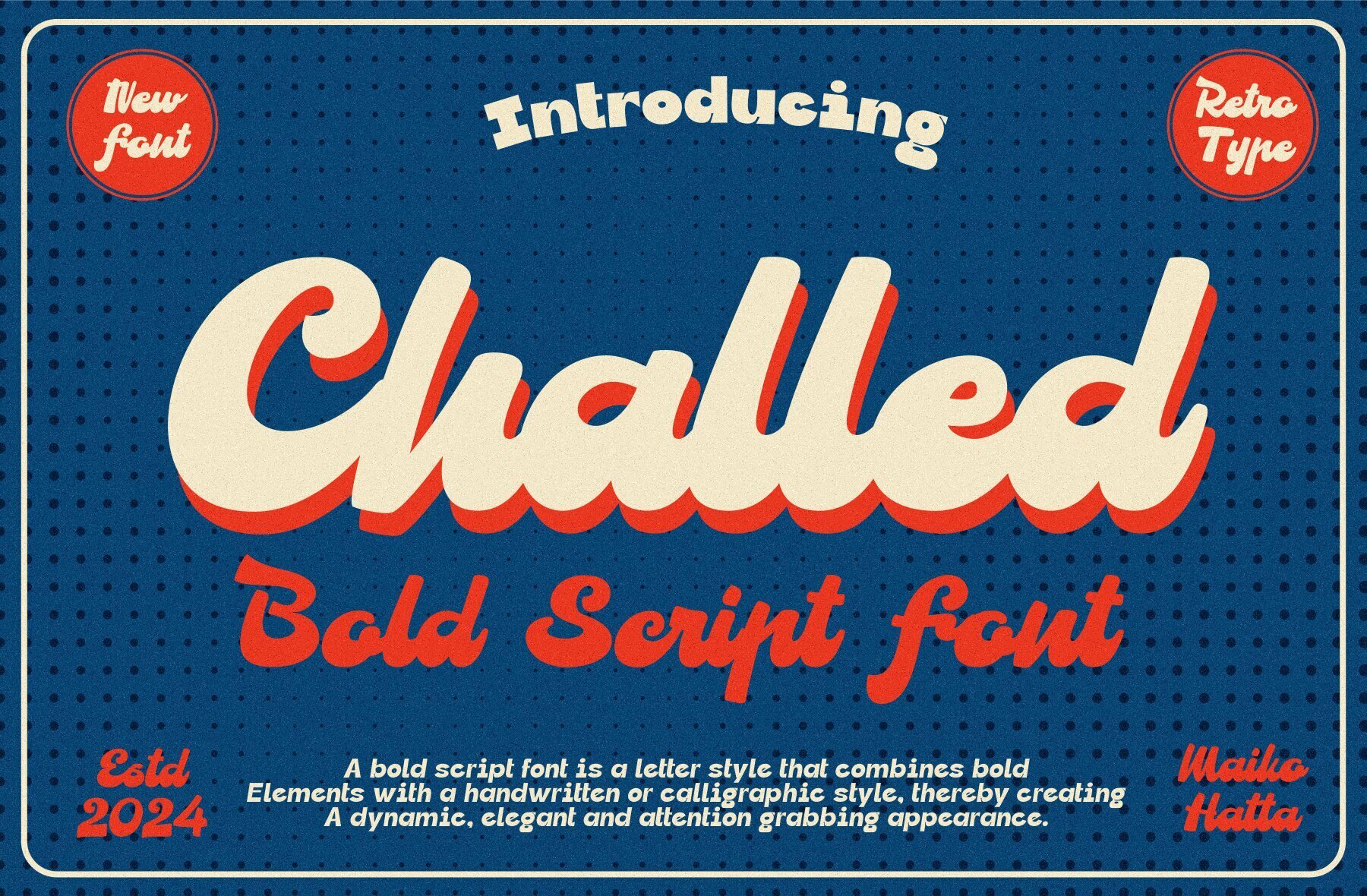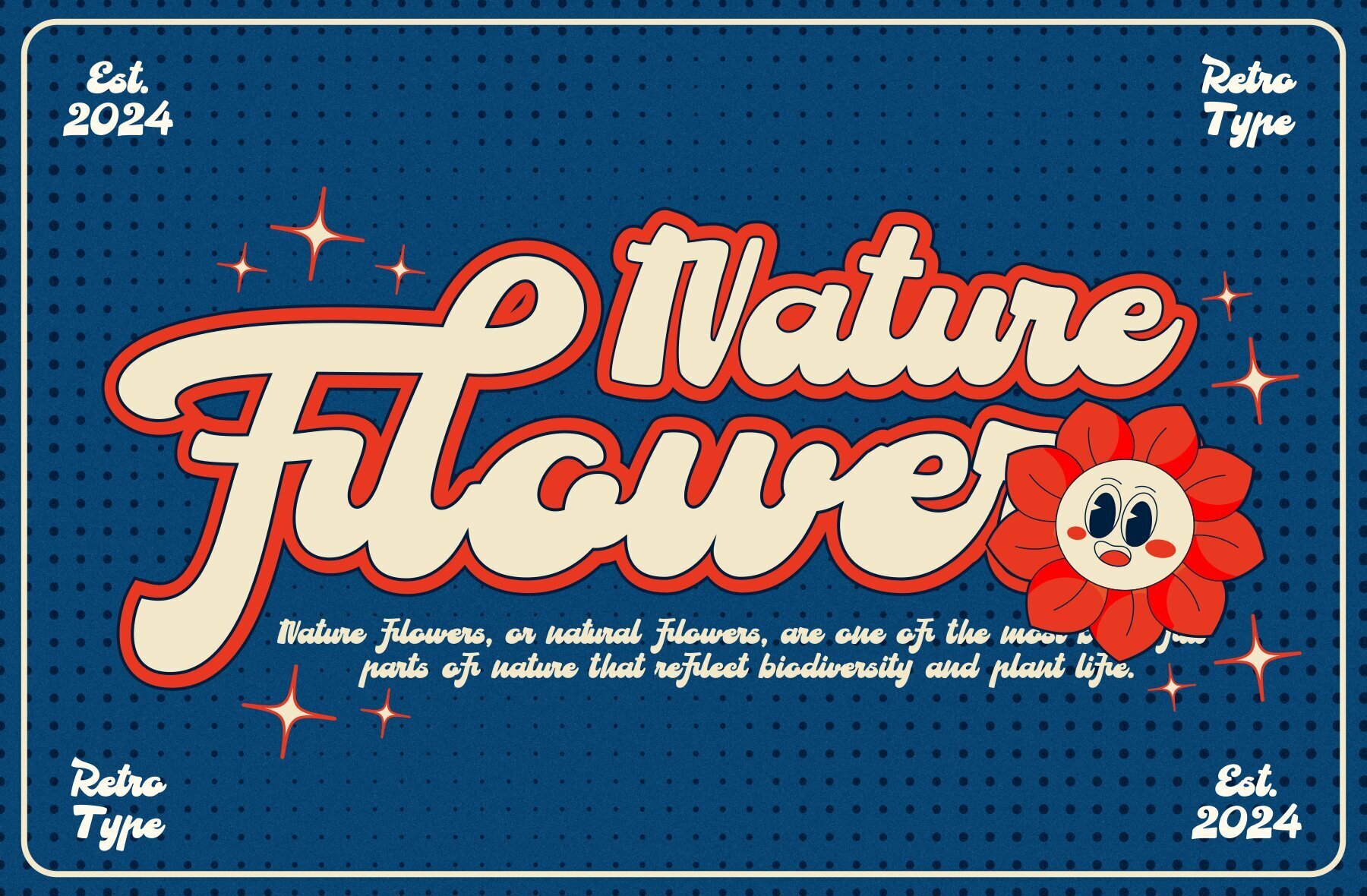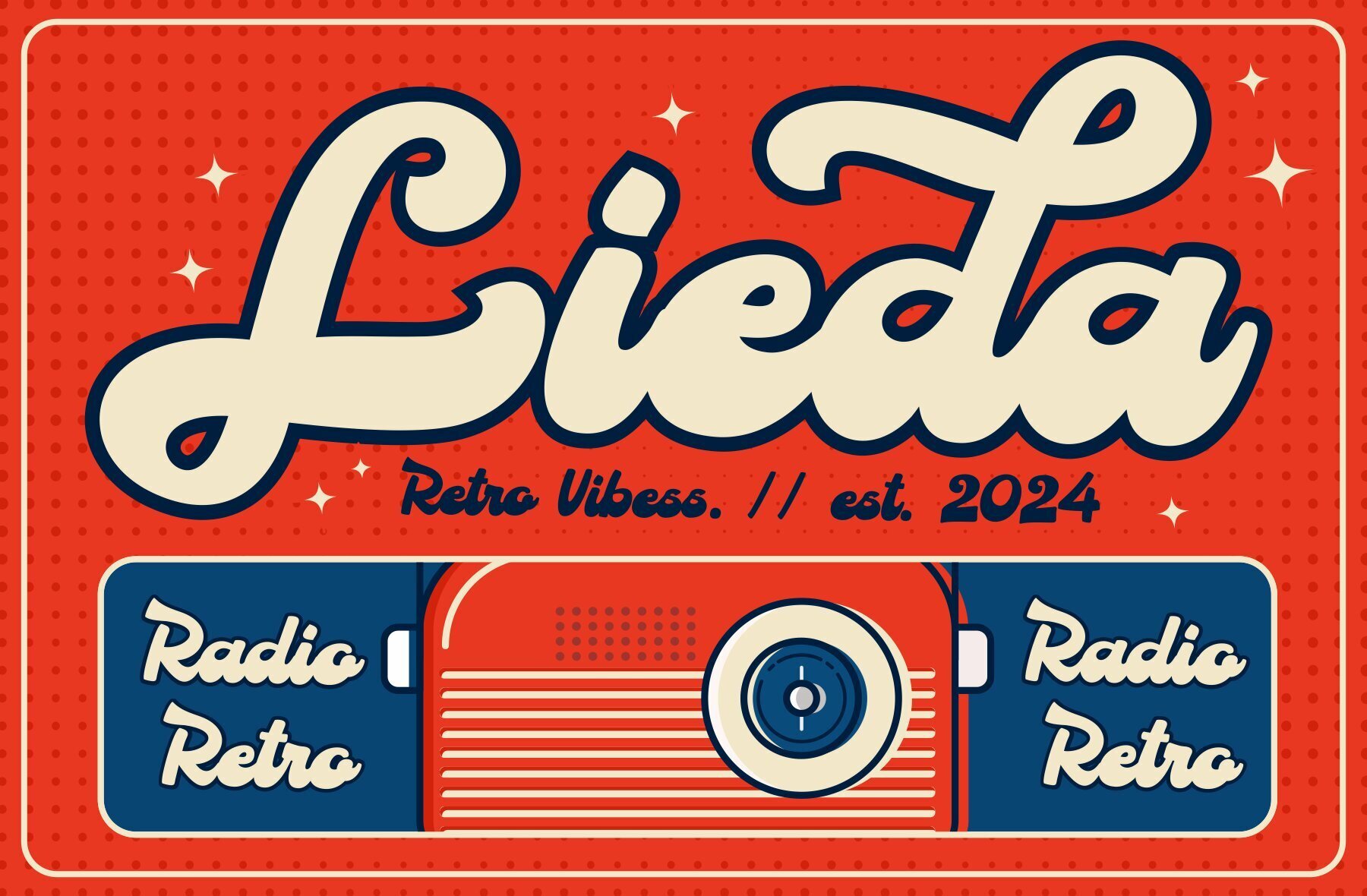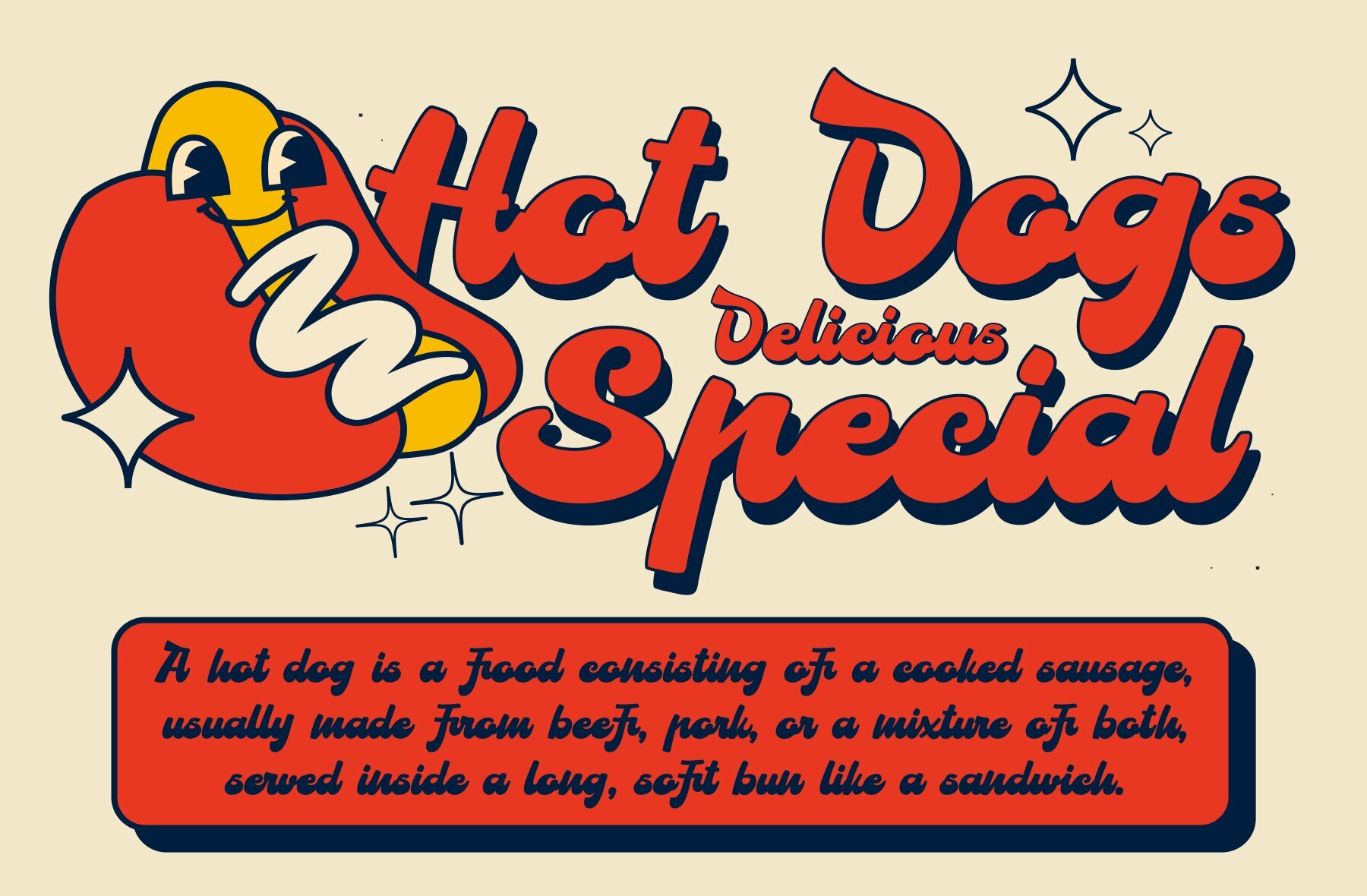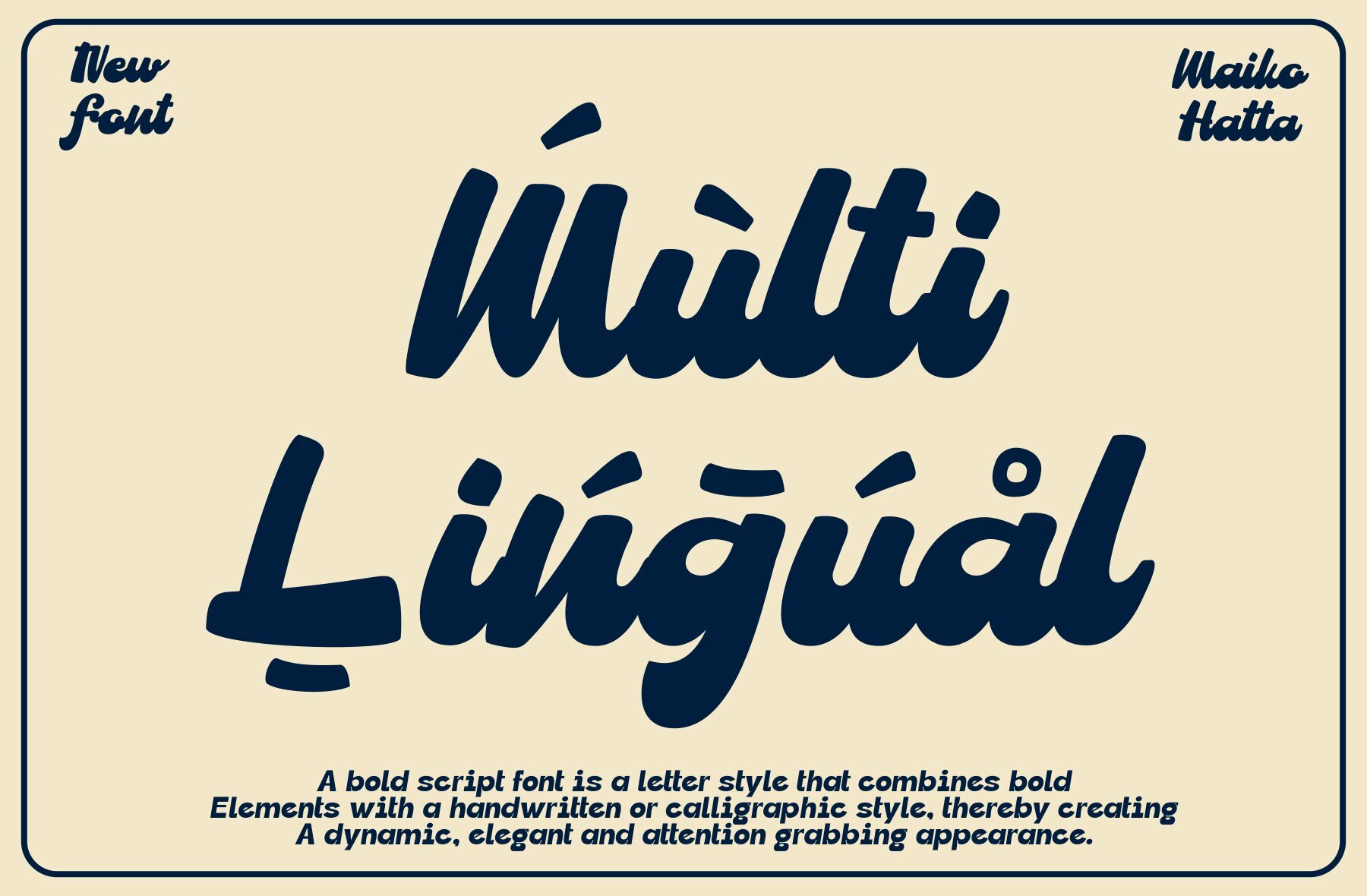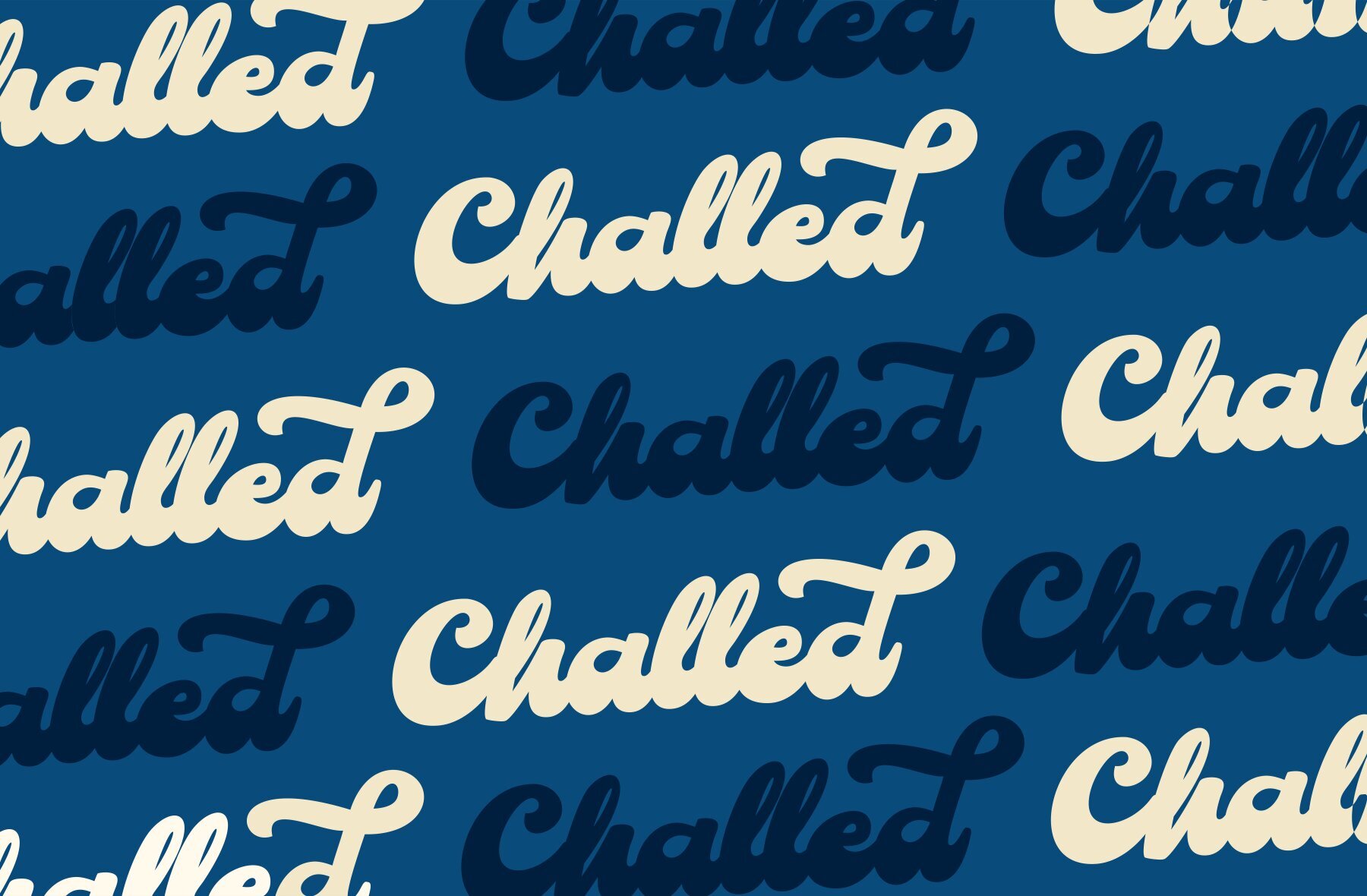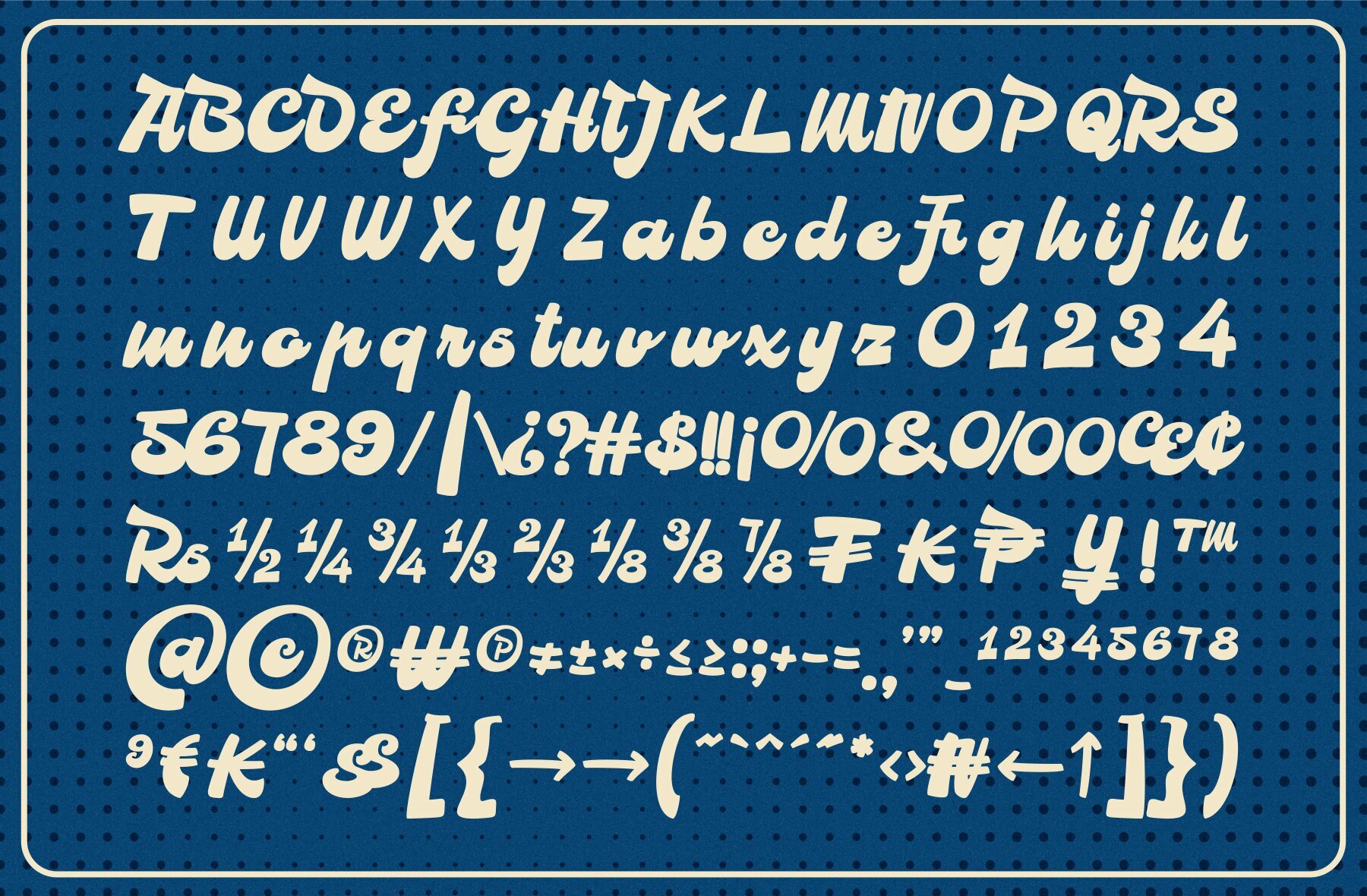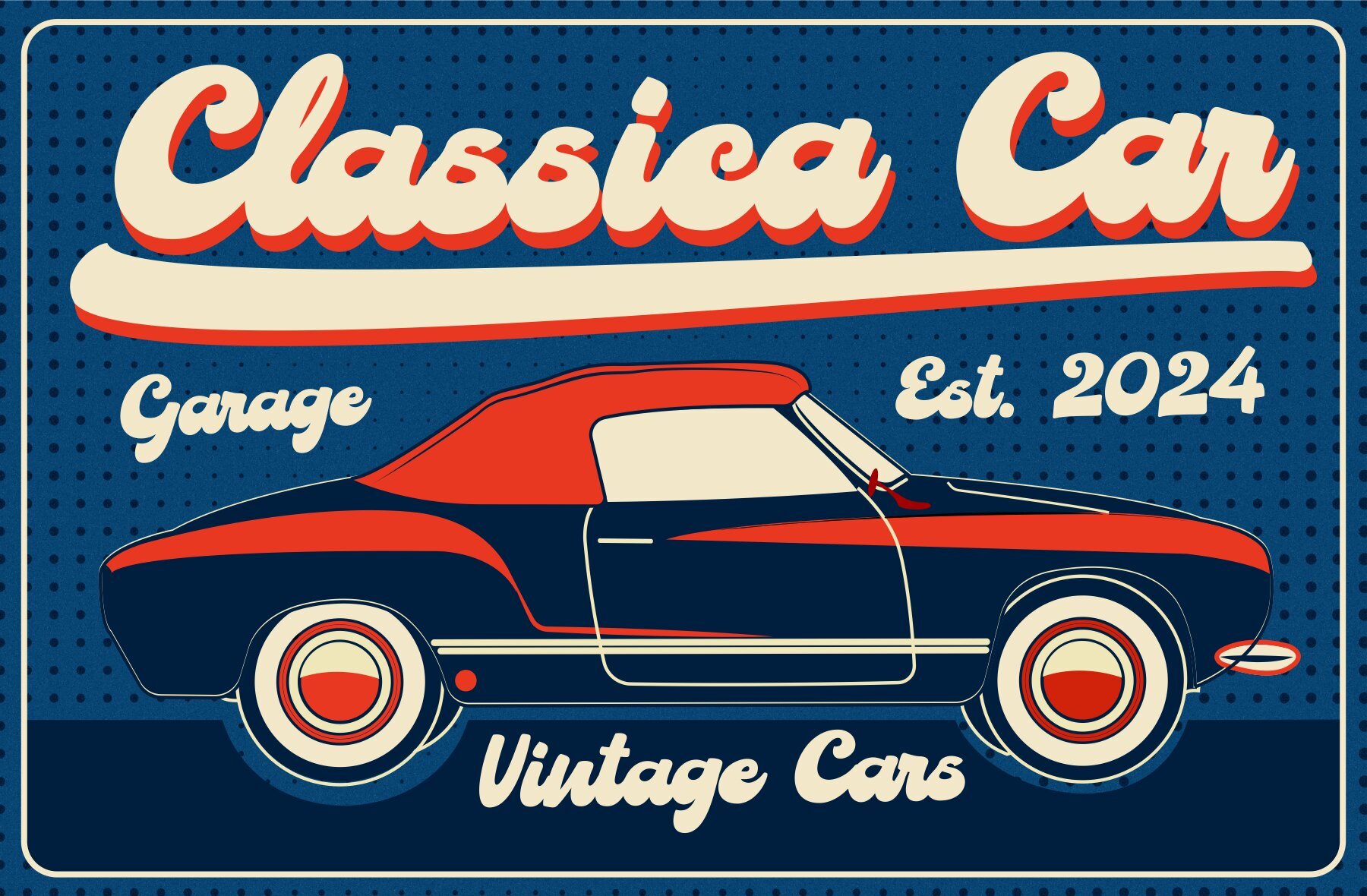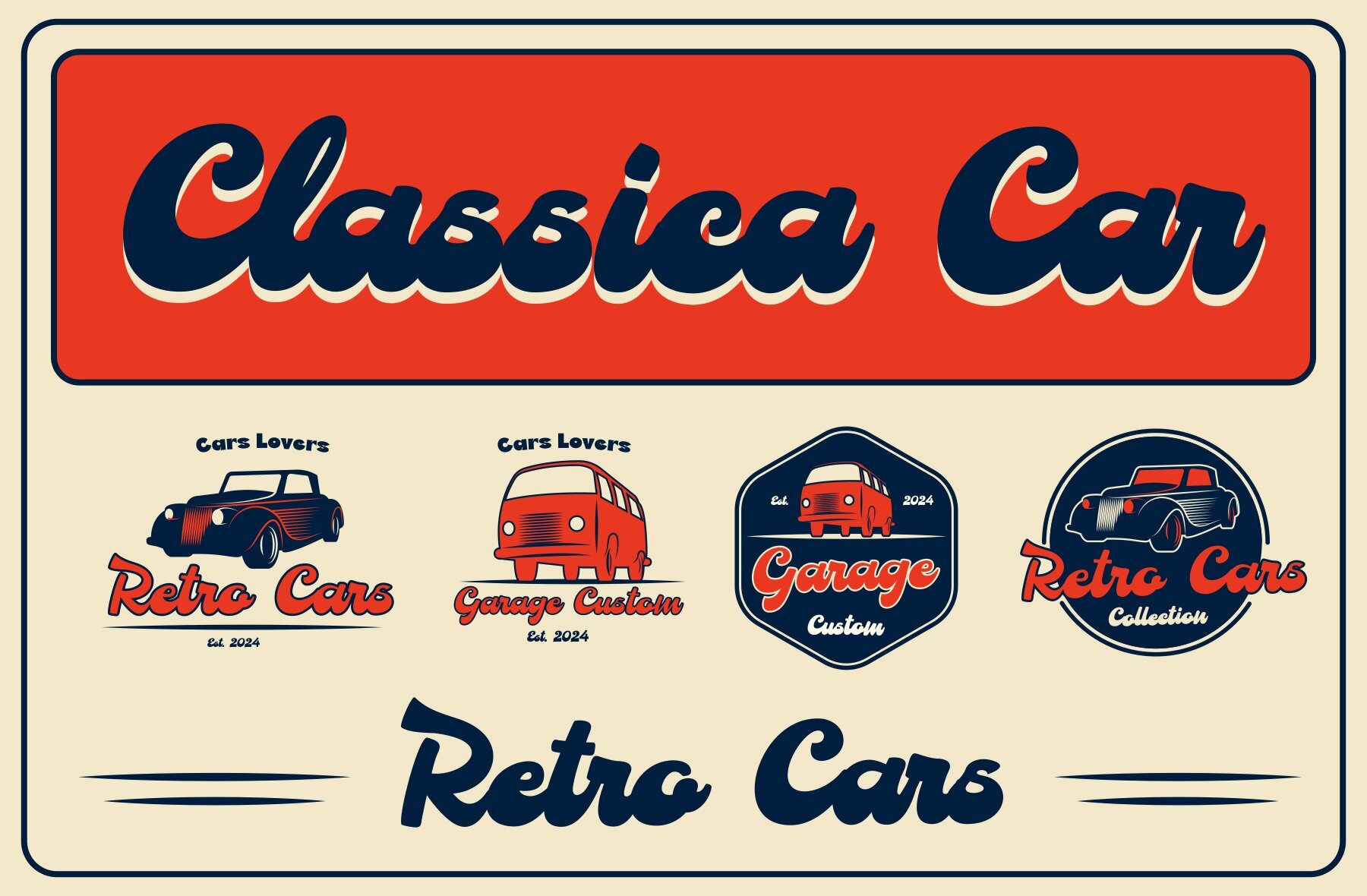
Challed Font
Challed
Introducing a bold script font that offers remarkable versatility for diverse design contexts. With its clean, professional, and contemporary aesthetic, this font seamlessly integrates into any project to enhance visual appeal. Its simplicity ensures it is suitable for various applications within graphic design and modern typography, allowing for creativity and innovation in your work.
Ideal for designers seeking a font that stands out, this script font can be employed in a wide array of projects, from branding and logos to posters and digital media. Its distinct style provides a fresh take on every design element, making it a valuable addition to any designer's toolkit.